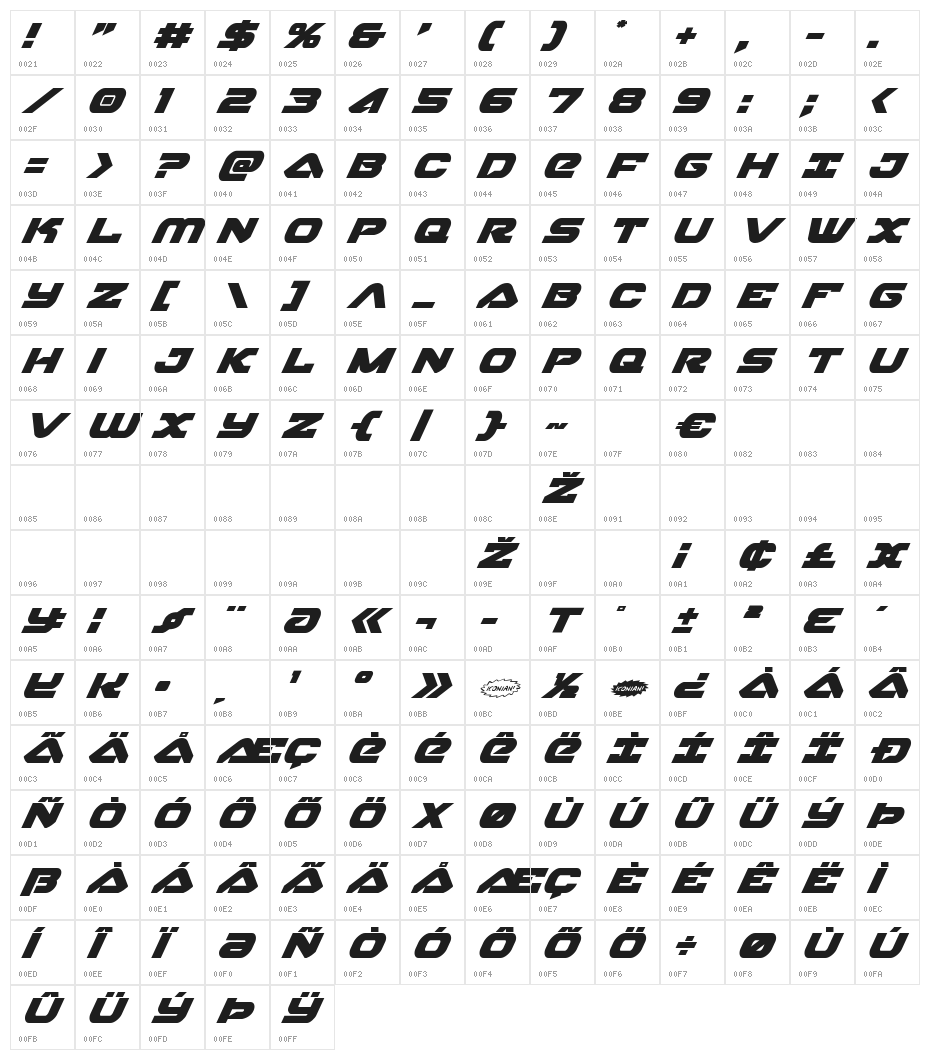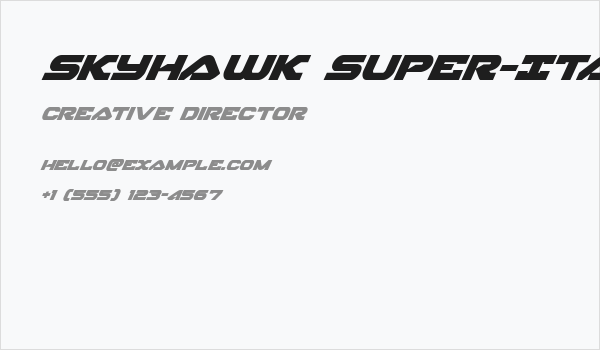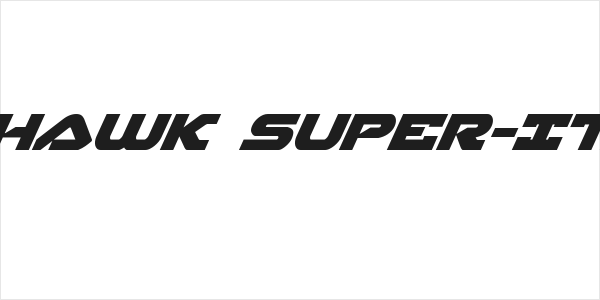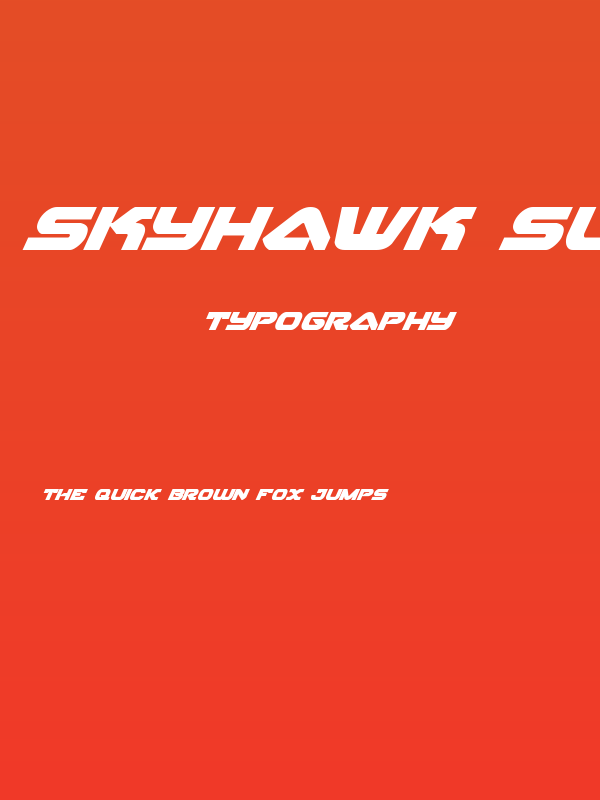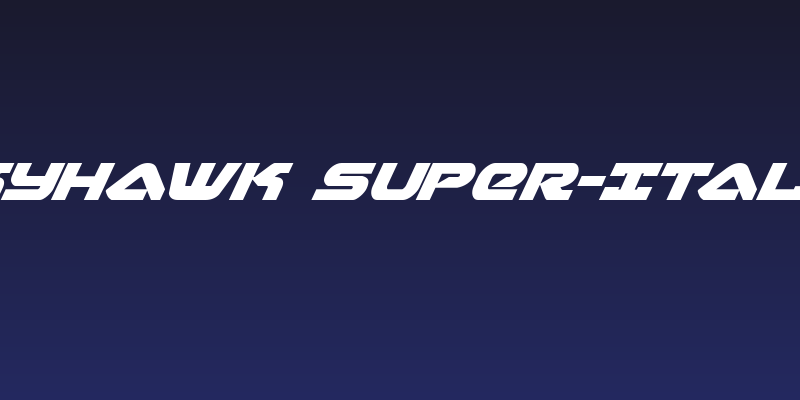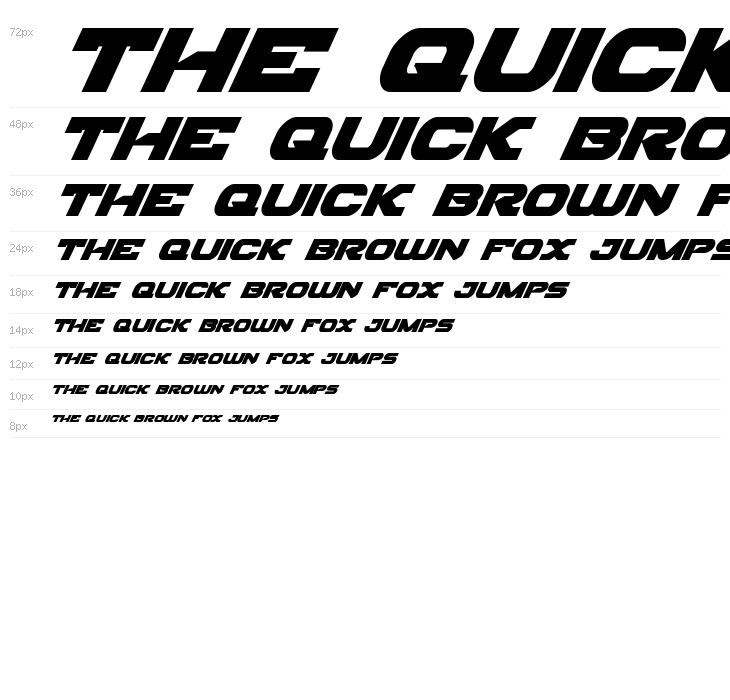
Skyhawk Super-Italic Font
Skyhawk Super-Italic Description
This font features a bold and dynamic italic style, characterized by its sharp angles and streamlined appearance. The letters are slanted forward, giving a sense of motion and speed, which is further emphasized by the thick, consistent strokes. The uppercase and lowercase letters maintain a uniform width, enhancing readability while preserving a distinct, modern aesthetic. The numbers and special characters follow the same design principles, ensuring a cohesive look across all glyphs. This font is ideal for projects that require a strong, impactful presence.
| Use Case | Logos, Headlines, Branding |
| Proposed Projects | Ideal for sports branding, automotive designs, dynamic logos, and modern advertising. |